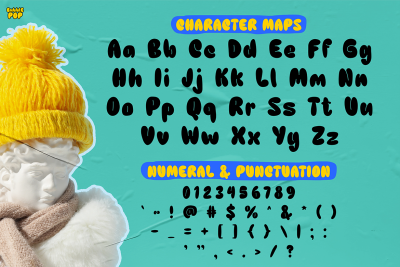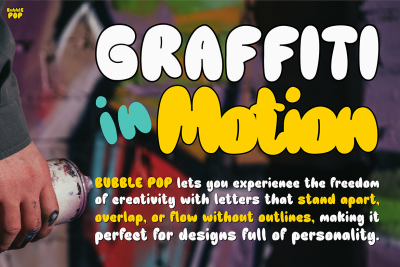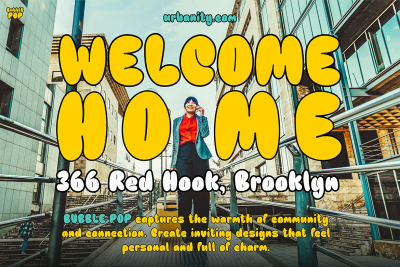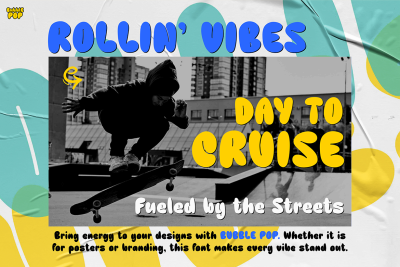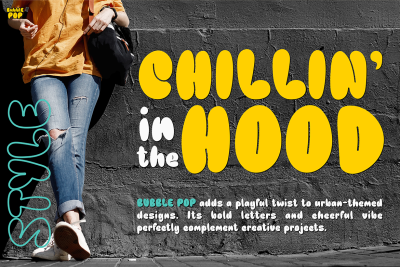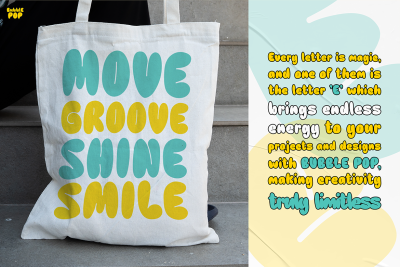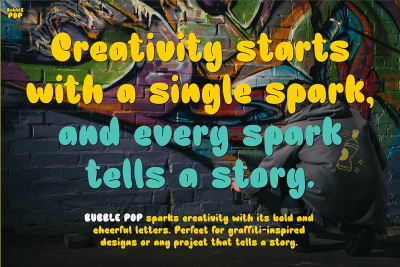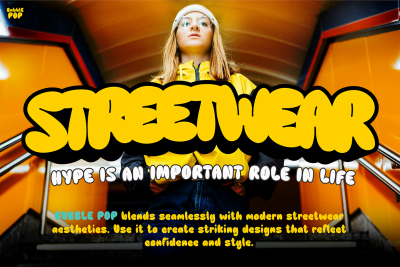
Bubble Font BUBBLO POP is a bold, playful typeface full of energy and charm. Its rounded shapes and cheerful design create a vibrant and engaging look, instantly capturing attention. Moreover, the fontโs quirky strokes and bubbly curves give it a dynamic personality that makes it unique. Each letter feels alive, almost as though itโs ready to pop off the screen, which ensures your text stands out in any creative project.
In addition, the thick, rounded edges enhance its legibility while maintaining its playful character. This balance of readability and design flair makes it versatile for various creative applications. Furthermore, the bold yellow tone, as shown in the preview, amplifies its friendly and approachable nature. It works especially well for designs targeting younger audiences or brands that want to convey a fun and lighthearted image.
What truly sets BUBBLO POP apart is its ability to evoke feelings of nostalgia while remaining modern and fresh. The font blends the charm of retro bubble typography with a contemporary twist, making it suitable for both classic and trendy themes. Whether you’re designing for a digital platform or physical products, this font can adapt effortlessly to different mediums and contexts.
Bubble Font BUBBLO POP Perfect For
Bubble Fontย BUBBLO POP is ideal for a wide range of projects and audiences. For instance, itโs perfect for designers working on childrenโs materials, such as storybooks, educational resources, games, or toy packaging. Similarly, businesses in the food and beverage industryโespecially those specializing in desserts, bubble tea, or snacksโwill find it an excellent choice for branding and packaging.
Additionally, marketers and advertisers can use this font to create youthful, eye-catching campaigns that appeal to a vibrant demographic. For digital creators, such as social media influencers or YouTubers, it can bring a fun, colorful flair to thumbnails, banners, or video overlays. Moreover, event planners organizing kid-friendly celebrations, festivals, or themed parties can use BUBBLO POP for invitations, signage, and decorations to create a lively and exciting atmosphere.
In conclusion, BUBBLO POP is the perfect choice for projects that focus on creativity, positivity, and playfulness. Its bold, energetic style will undoubtedly make your designs stand out, whether in print or digital formats. With its versatility and charm, this font is a must-have for anyone seeking a dynamic and fun typeface.